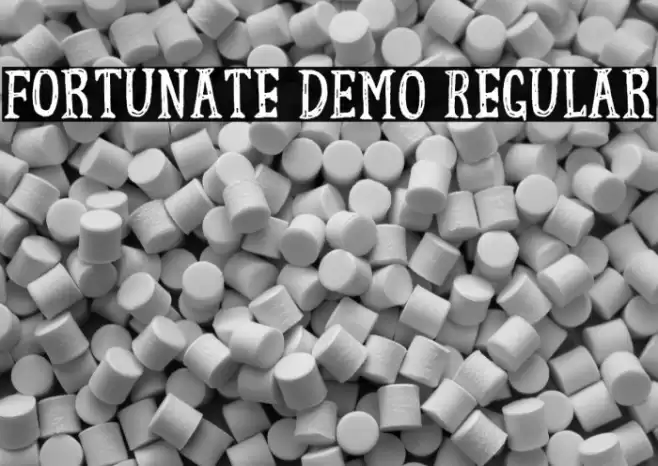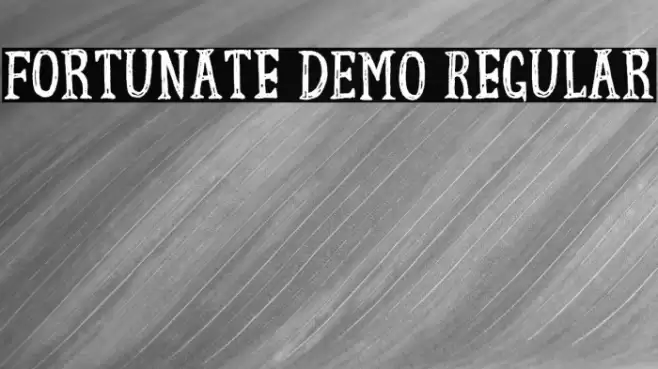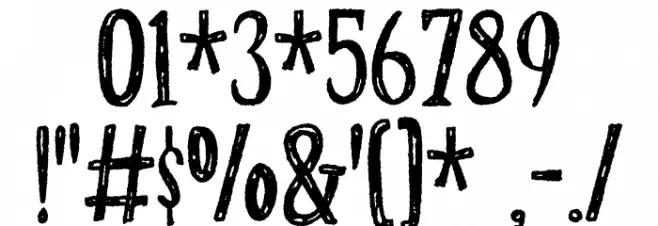
Fortunate DEMO Regular Font
Fortunate DEMO Regular Description
This font features a bold, hand-drawn style with a rough, textured appearance that gives it a vintage and rustic feel. The characters are slightly irregular, adding to the handcrafted aesthetic. The uppercase letters are tall and narrow, while the lowercase letters maintain a consistent style with a slightly smaller size. The numbers and special characters follow the same design, ensuring a cohesive look across all glyphs. The font's unique style makes it stand out, suitable for projects that require a touch of personality and charm.
A bold, hand-drawn font with a vintage, textured look from Uncategorized fonts.
- Proposed Projects: Ideal for branding, posters, packaging, and any design that benefits from a handcrafted, vintage aesthetic.
- Overall Style: Vintage